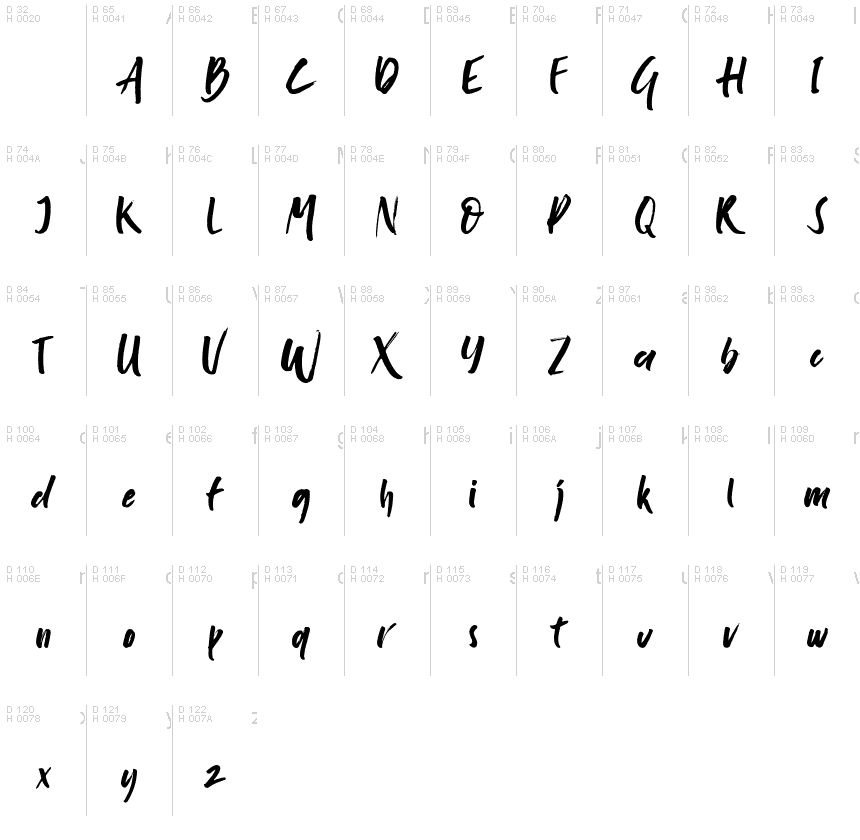
Santoryu
Santoryu, the brush font designed by Kokostd, is a versatile typeface perfect for projects that require a touch of artistic flair. Its semi-condensed width and semi-bold font style make it an ideal choice for creative designs such as branding materials, packaging, and posters. Santoryu's flowing strokes capture the essence of brush lettering, adding an organic feel to any project. Whether you're designing for a modern brand or a vintage-inspired aesthetic, Santoryu is sure to add character and personality to your typography. Try it out on your next project and watch your design come to life!